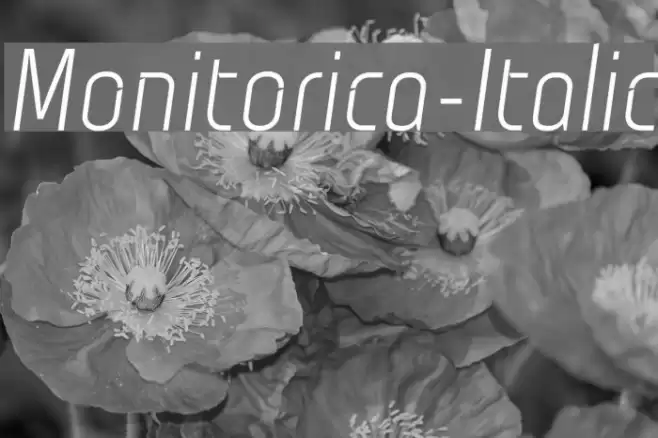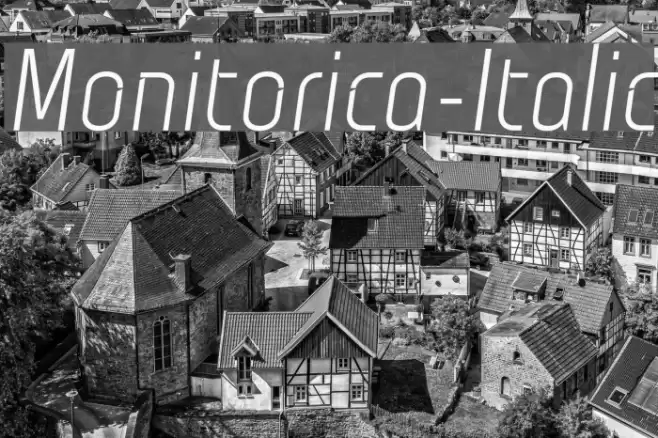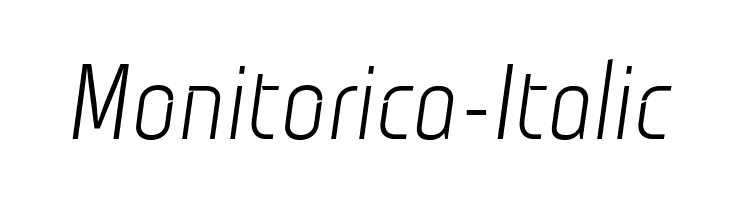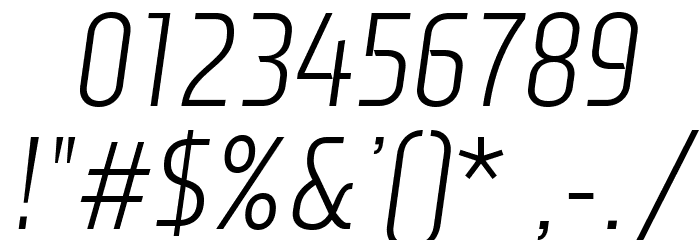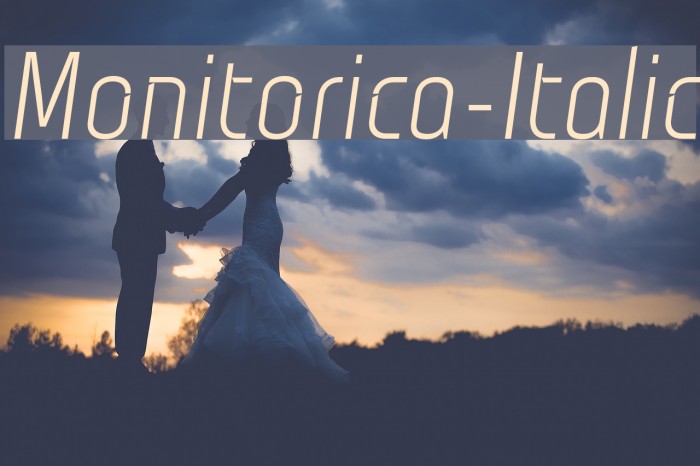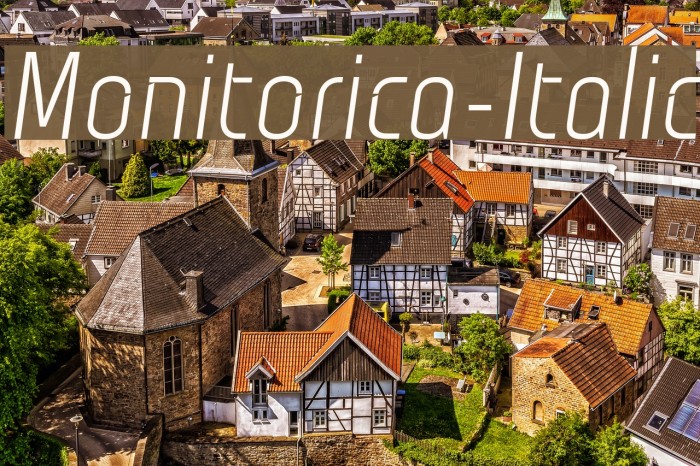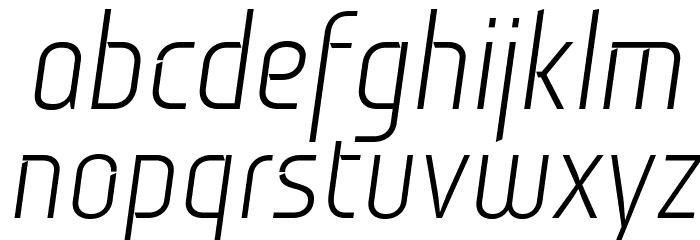
Monitorica-Italic Font
Monitorica-Italic Description
This font features a sleek, modern design with a slight italic slant, giving it a dynamic and forward-moving appearance. The characters are clean and streamlined, with a consistent stroke width that maintains a sense of uniformity and balance. The uppercase letters are tall and narrow, while the lowercase letters are slightly more rounded, providing a harmonious contrast. The numerals are clear and legible, making them suitable for various applications. Special characters are well-integrated, maintaining the overall aesthetic of the font. This font's style is both professional and contemporary, making it versatile for numerous design projects.
A sleek, modern italic font with clean lines and a dynamic appearance from Uncategorized fonts.